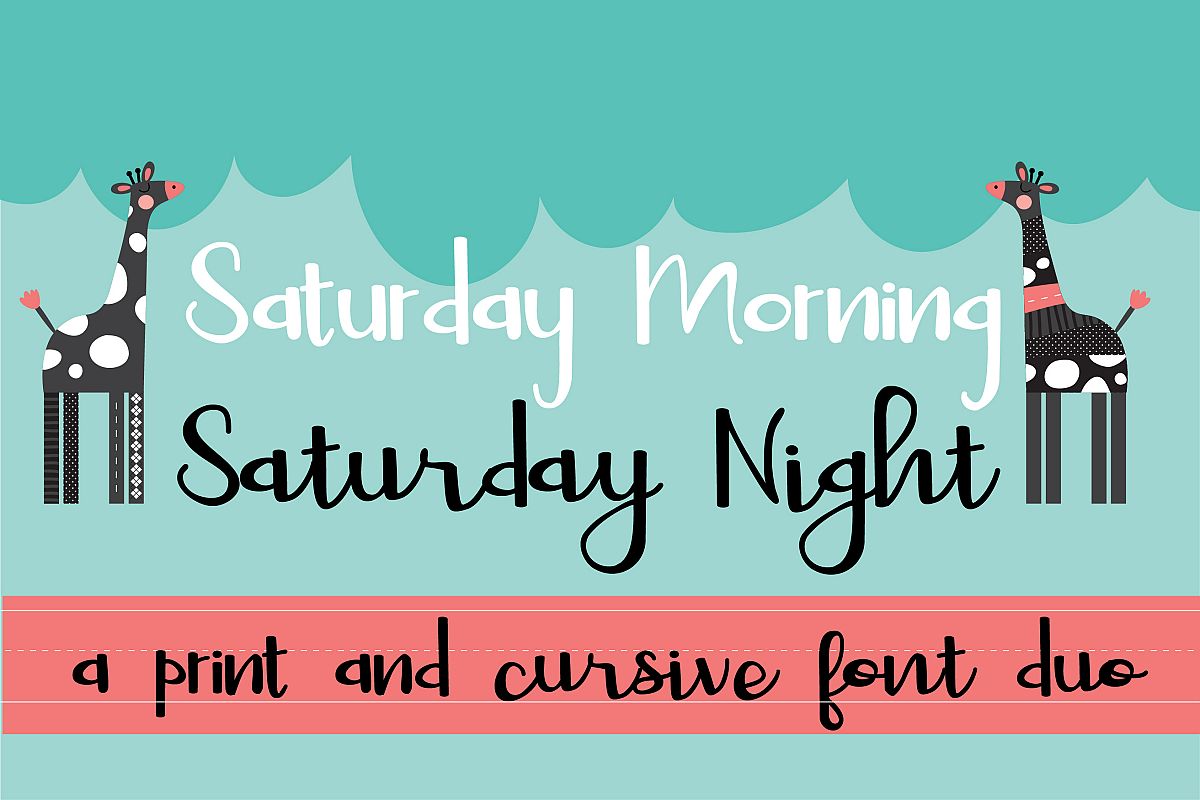
PN Saturday Font Duo
This adorable font duo has one cursive font: PN Saturday Night, and coordinating print font: PN Saturday Morning. Use both together for a coordinated look!